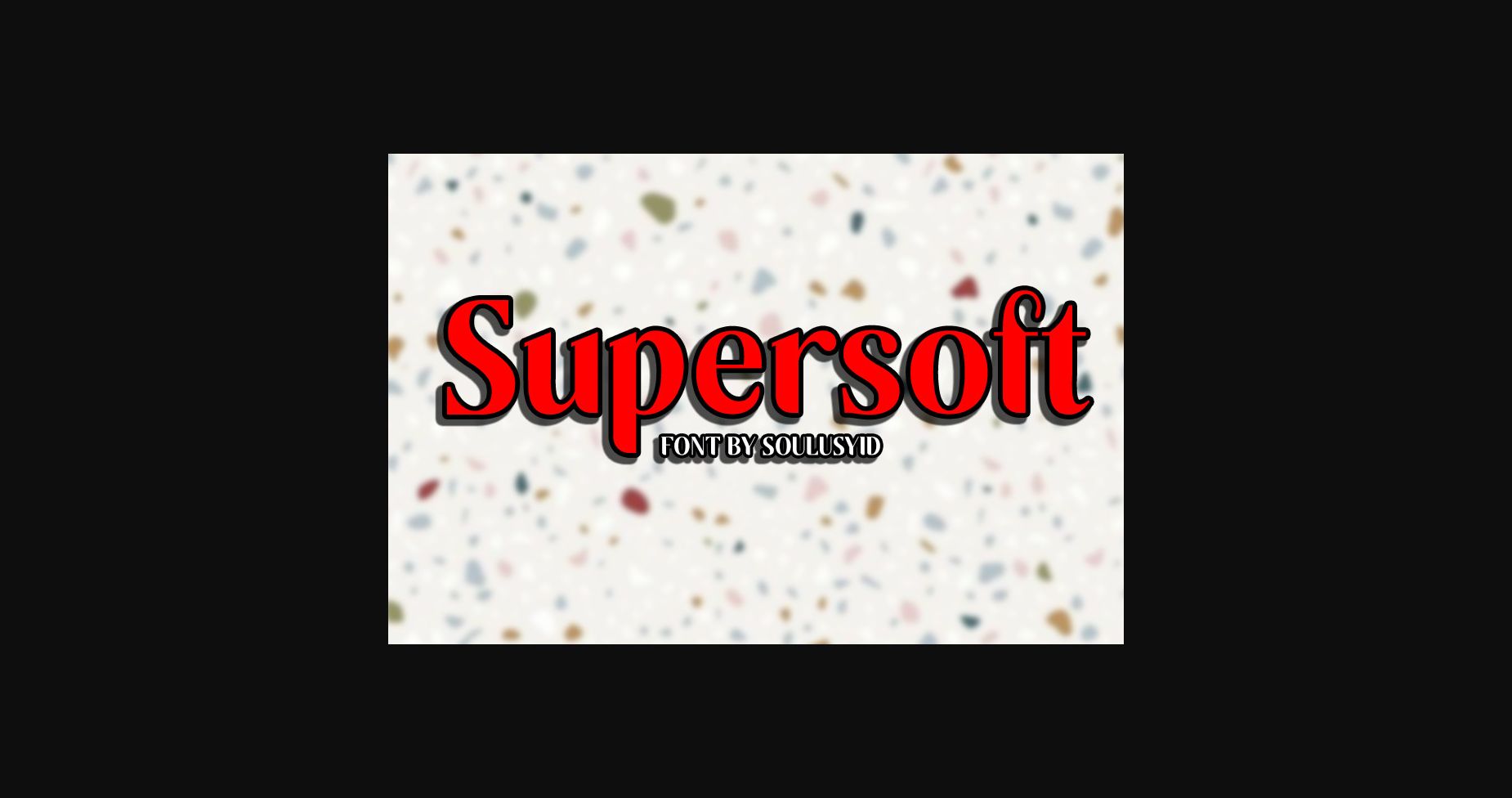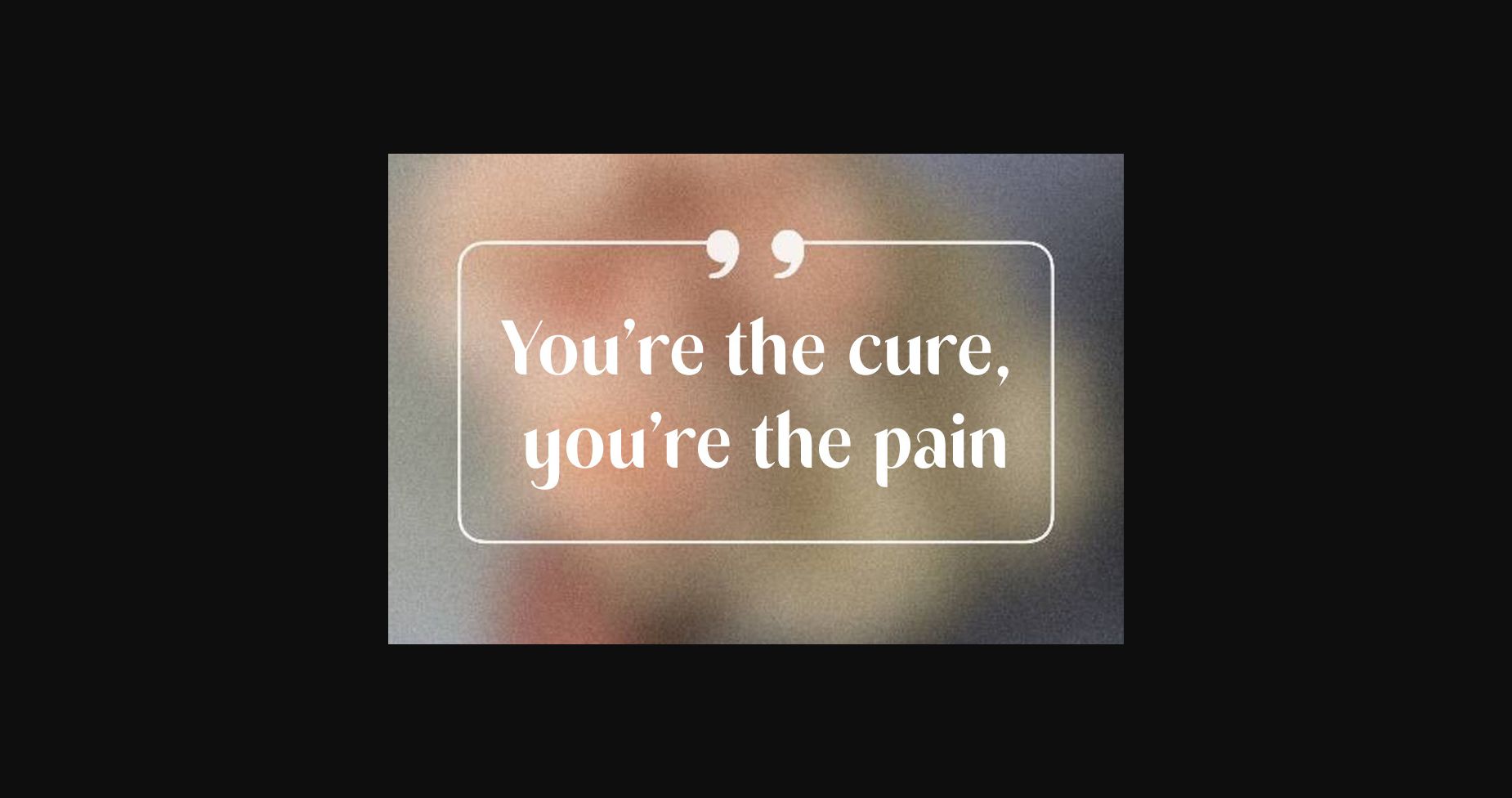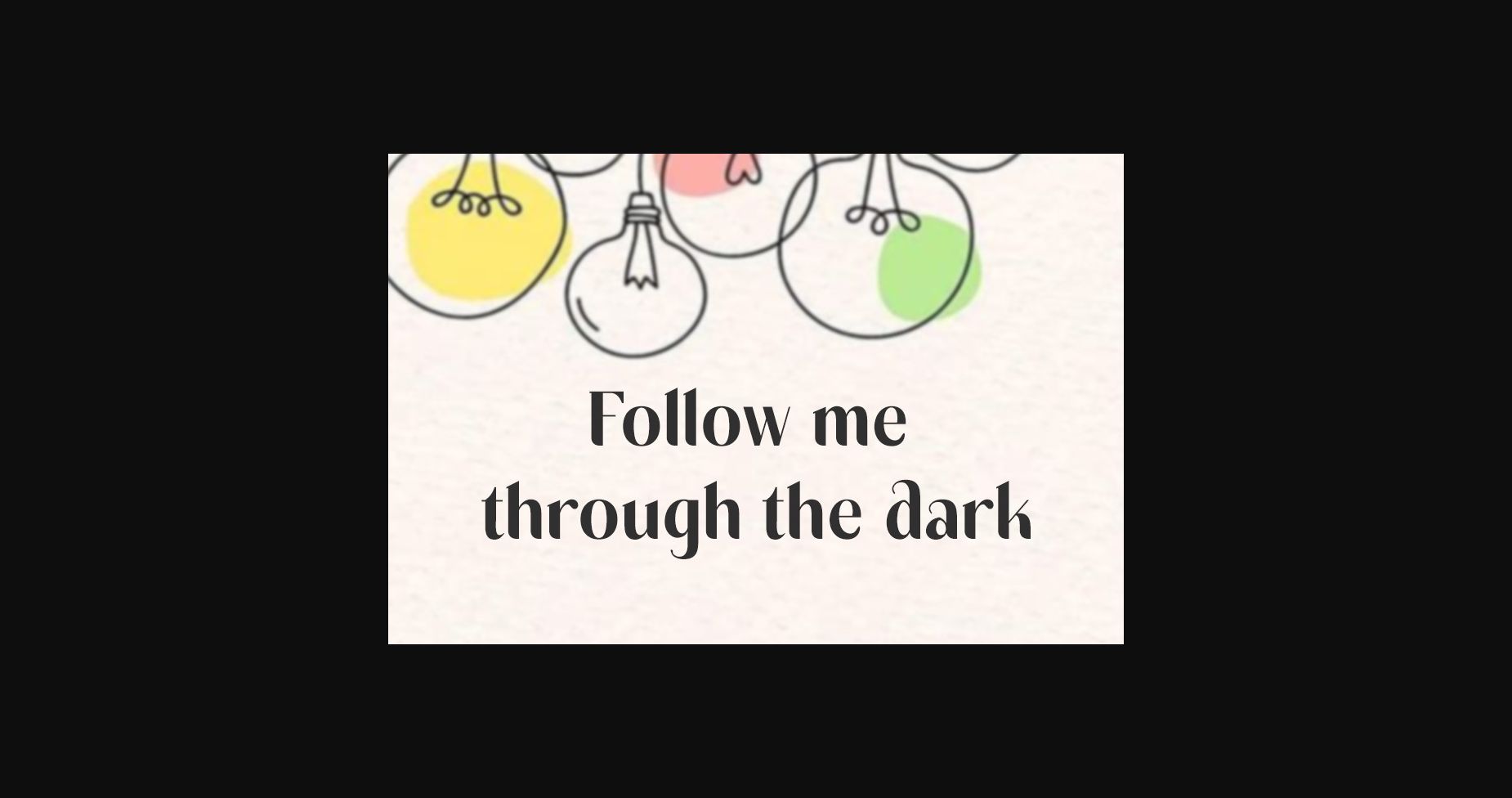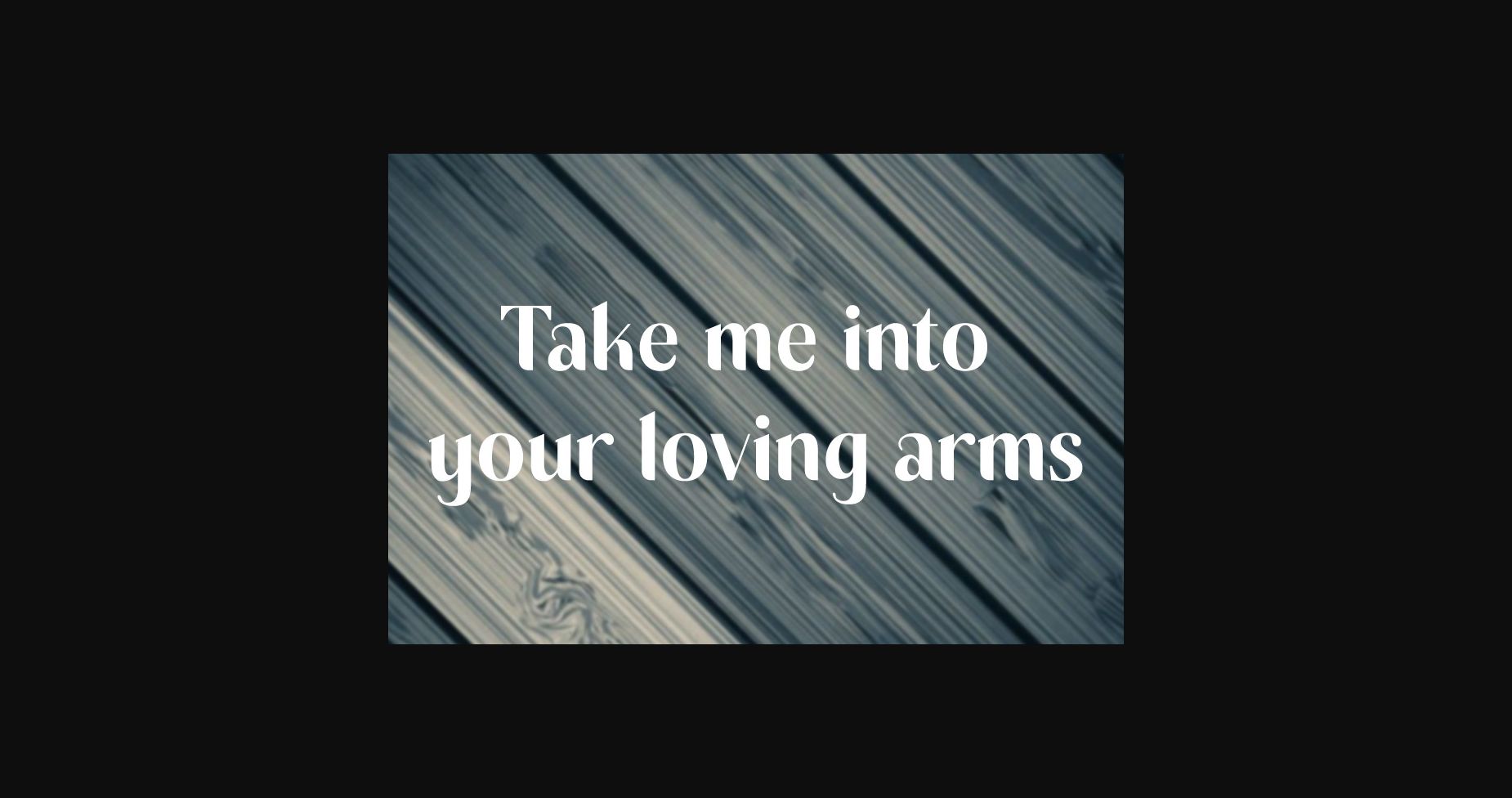
About Supersoft Font
This sleek and sophisticated sans-serif font exudes a sense of contemporary style and professionalism. Supersoft’s perfectly balanced letterforms convey a sense of harmony and order, making it an excellent choice for projects that require a modern, refined look.